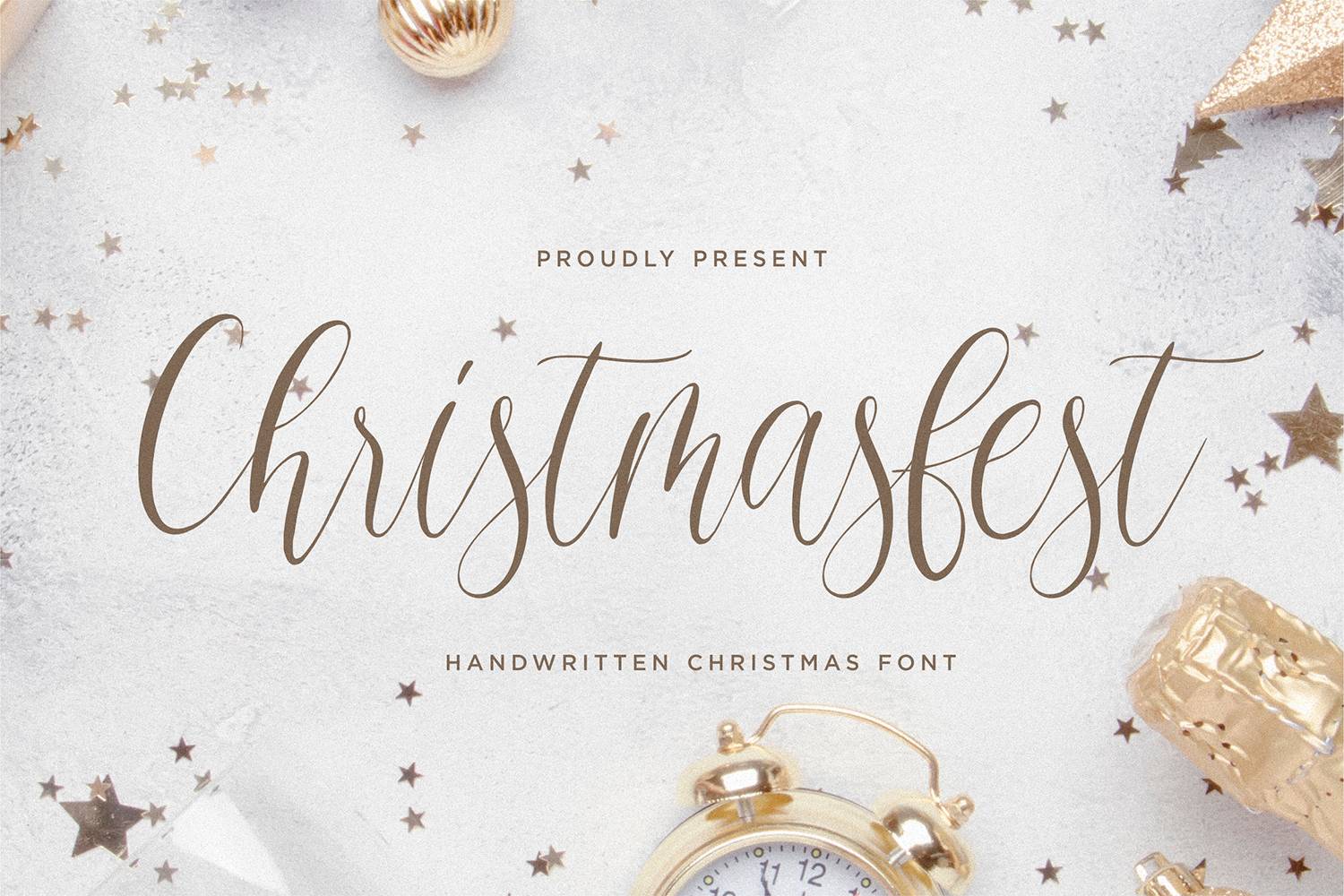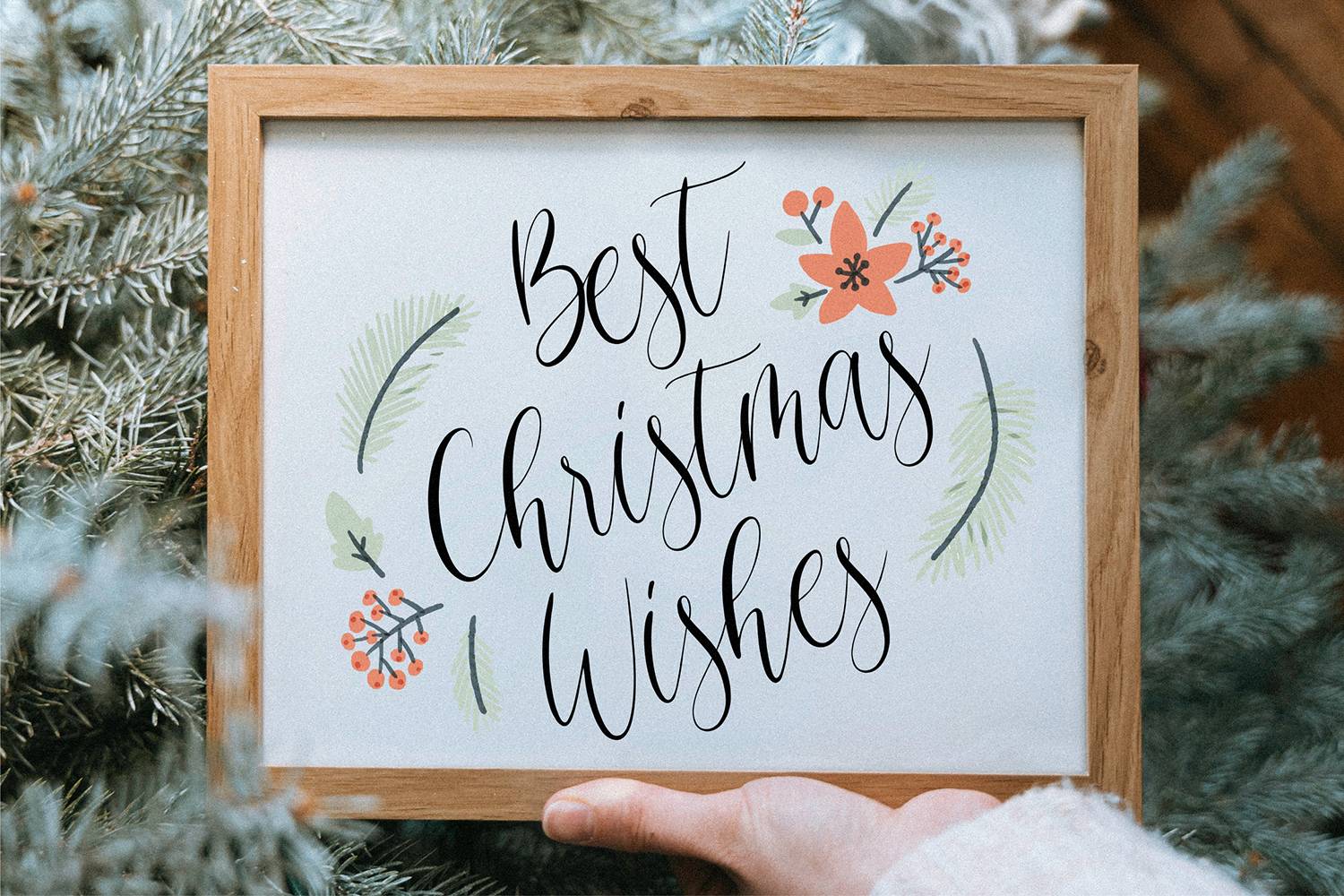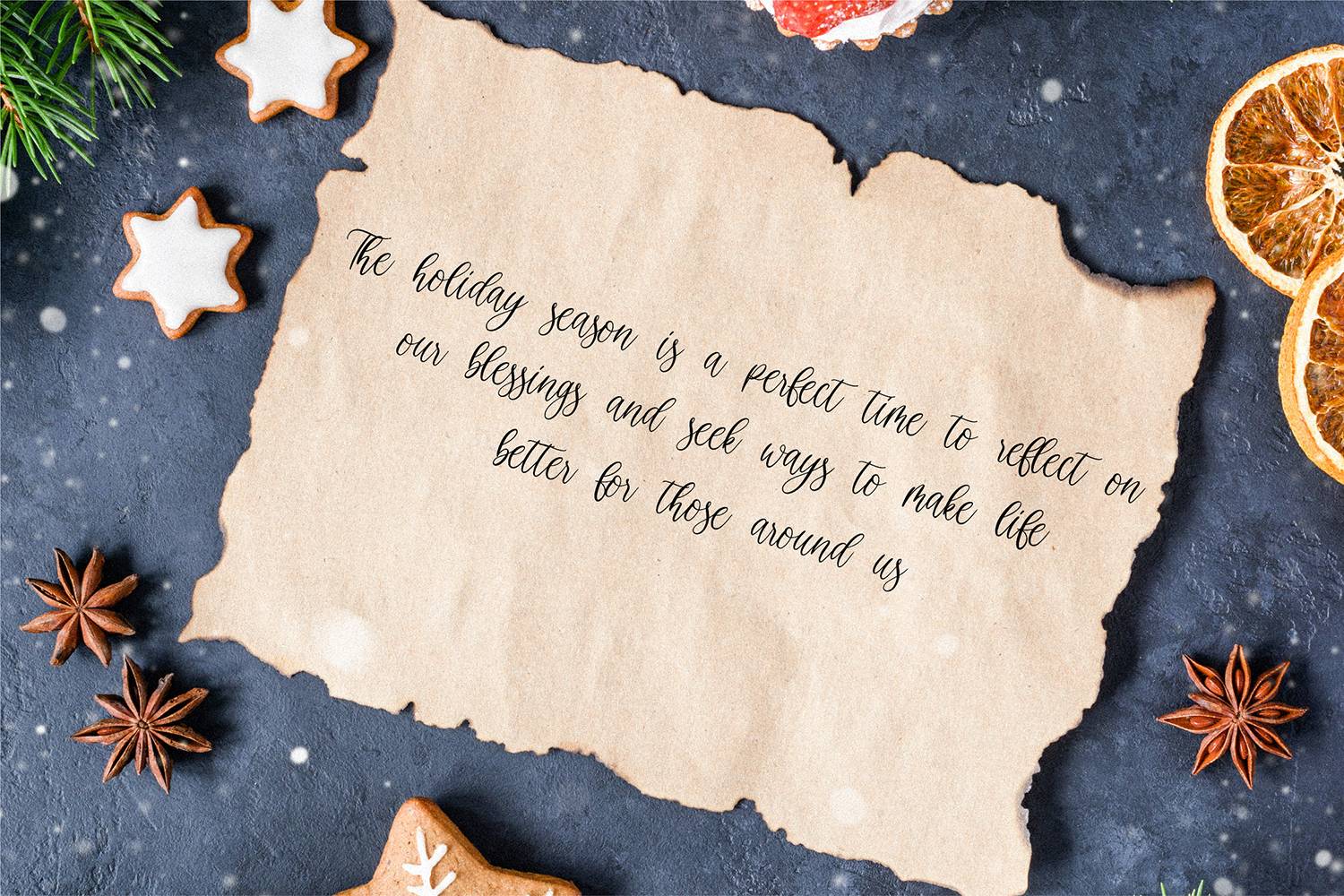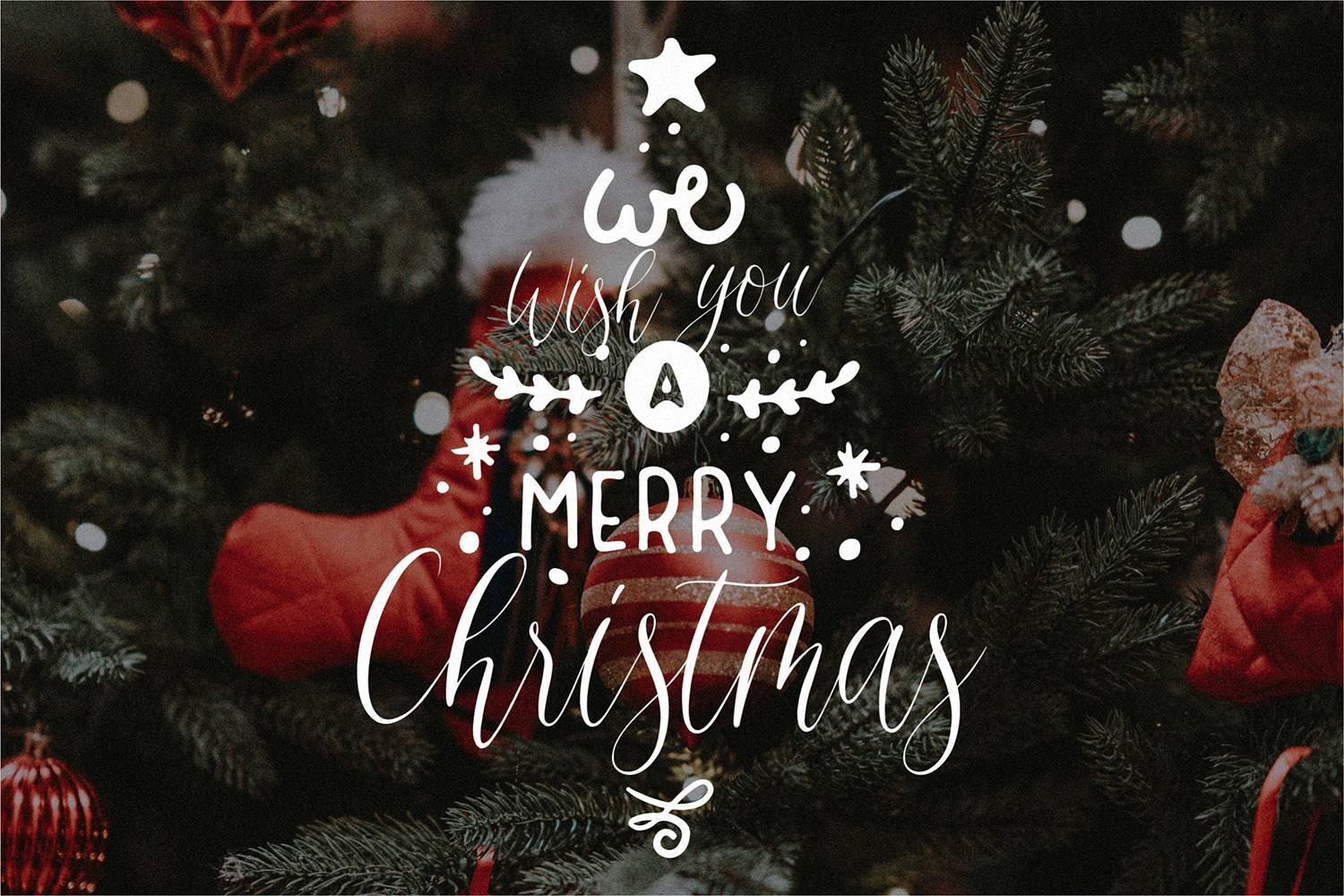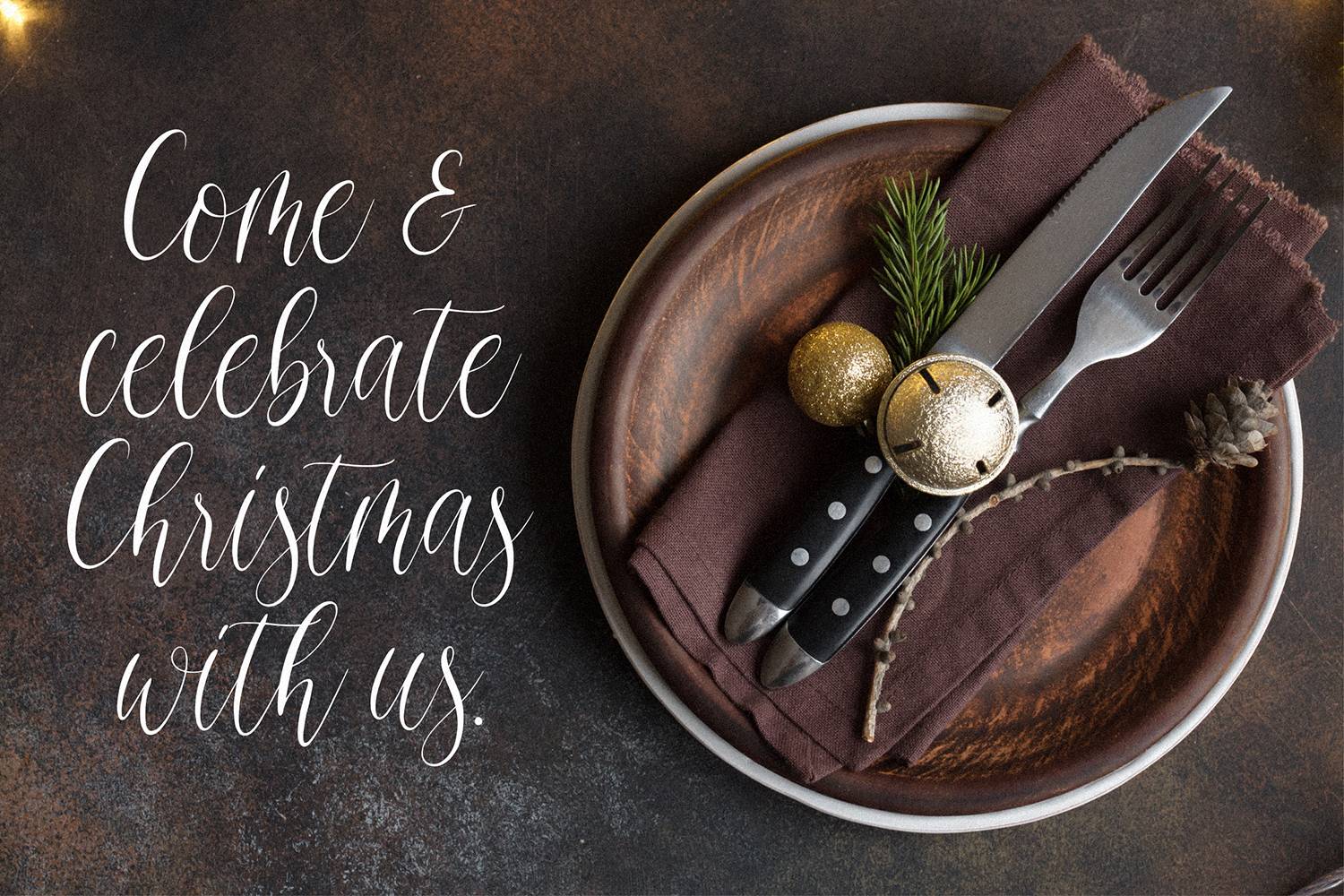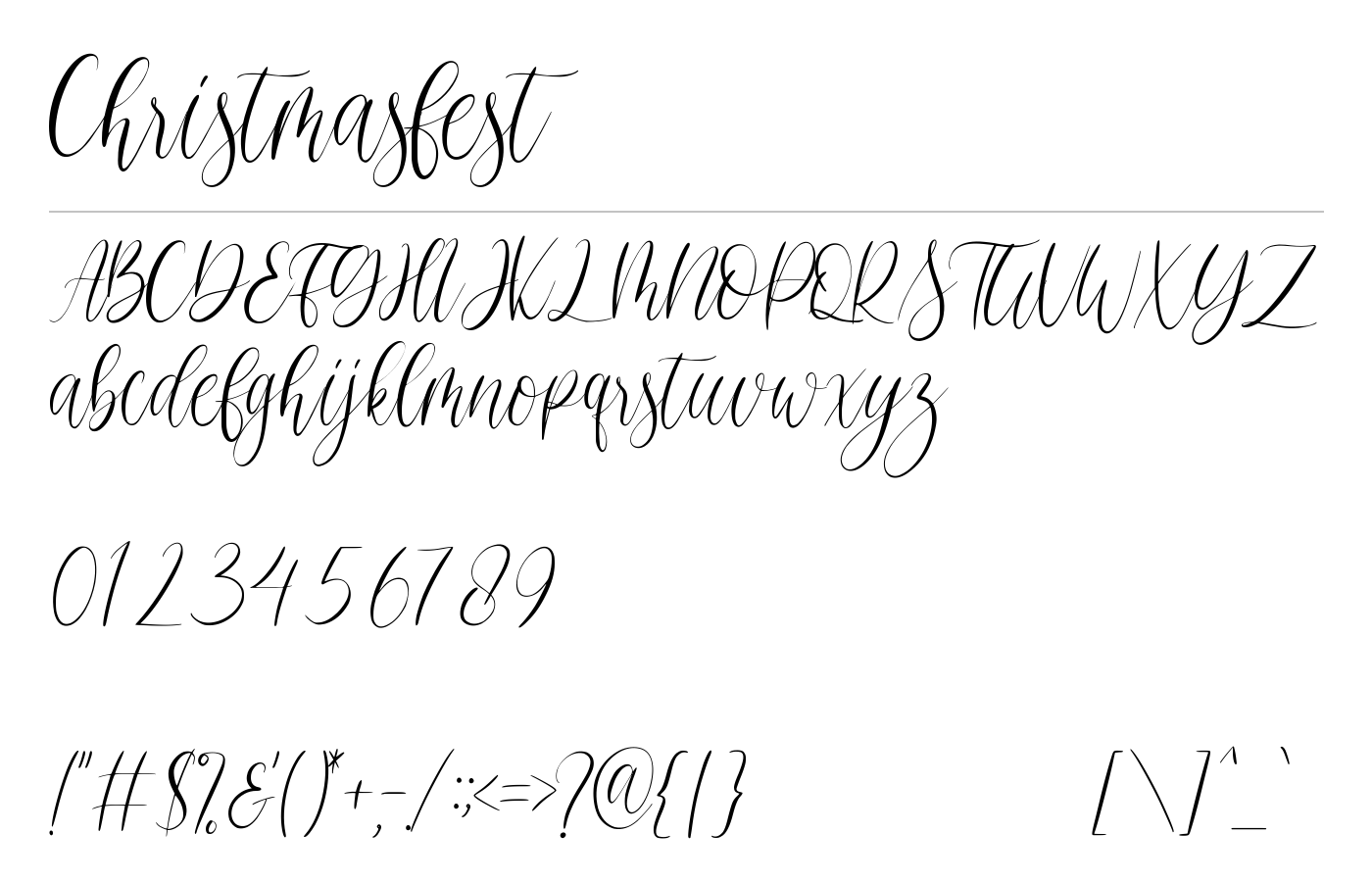
Christmasfest is an elegant, flowing script font with delicate, thin strokes and a graceful, handwritten feel. Its tall, slender letterforms and smooth curves lend a sophisticated yet festive charm, making it ideal for holiday invitations, seasonal branding, and decorative headlines where a touch of refinement and warmth is desired.
Christmasfest Font
About Christmasfest Font